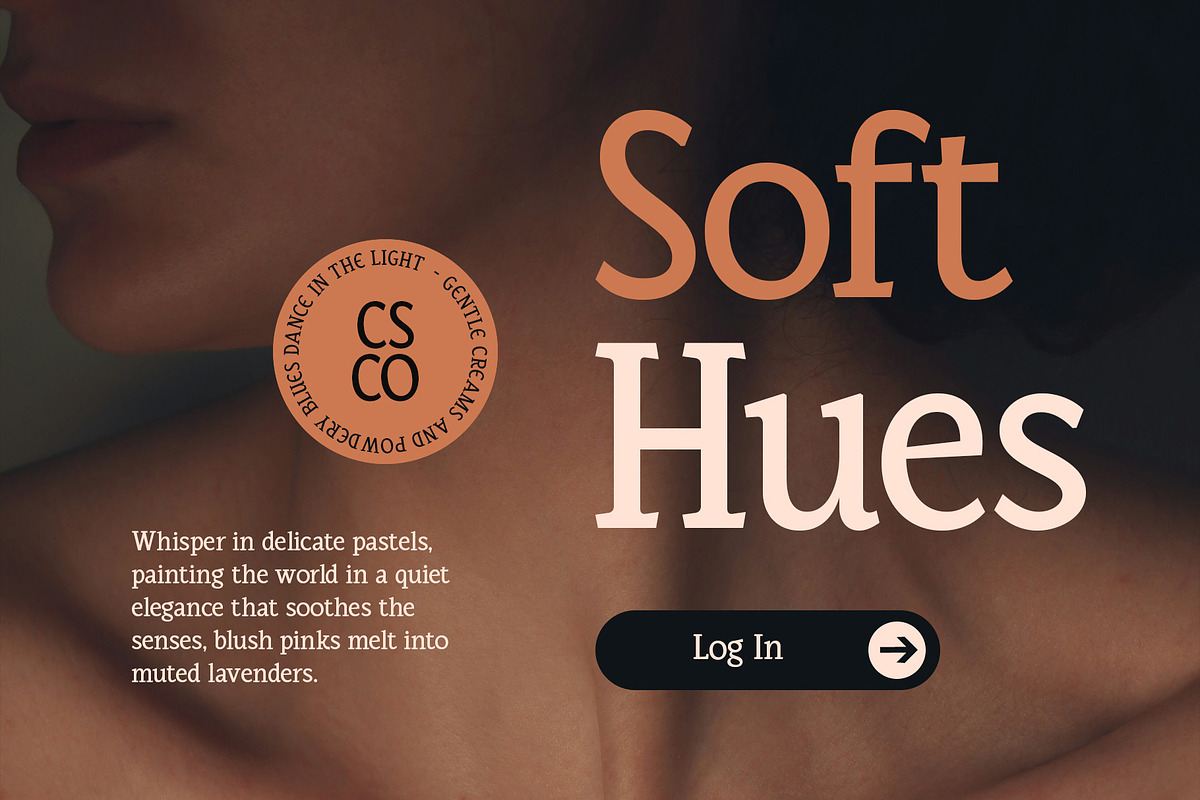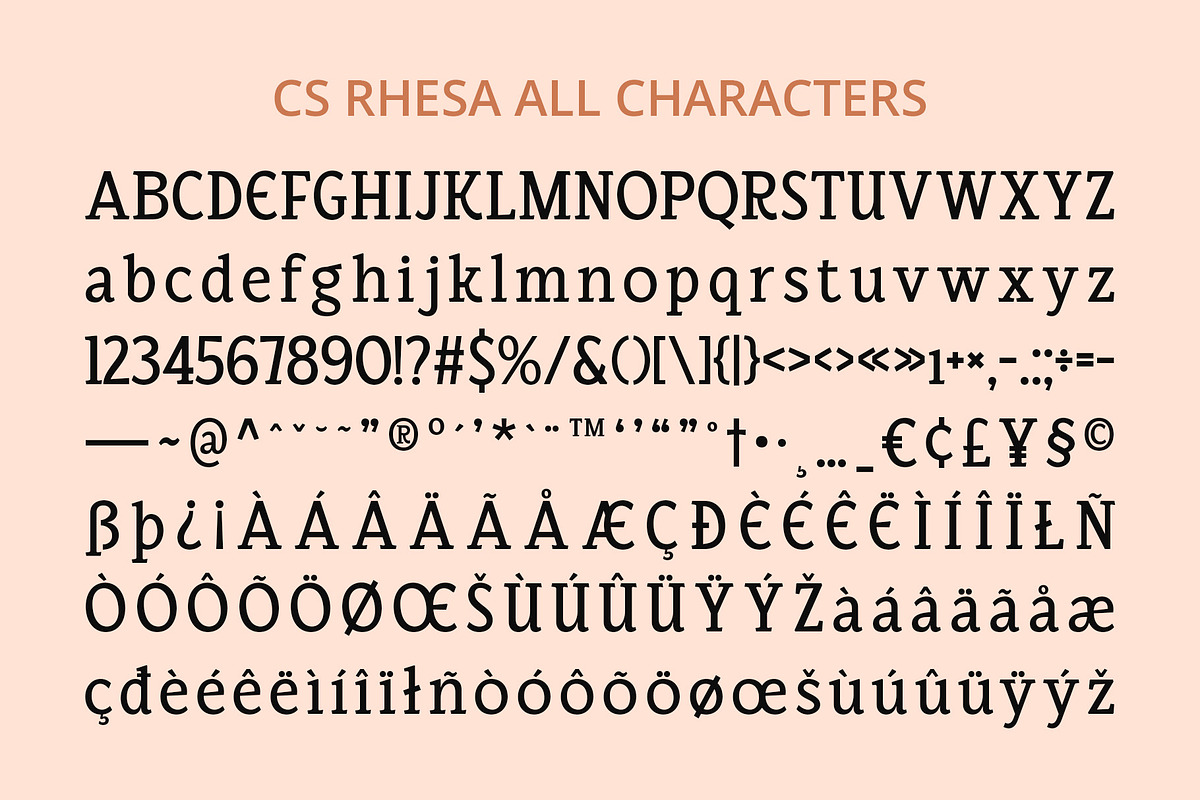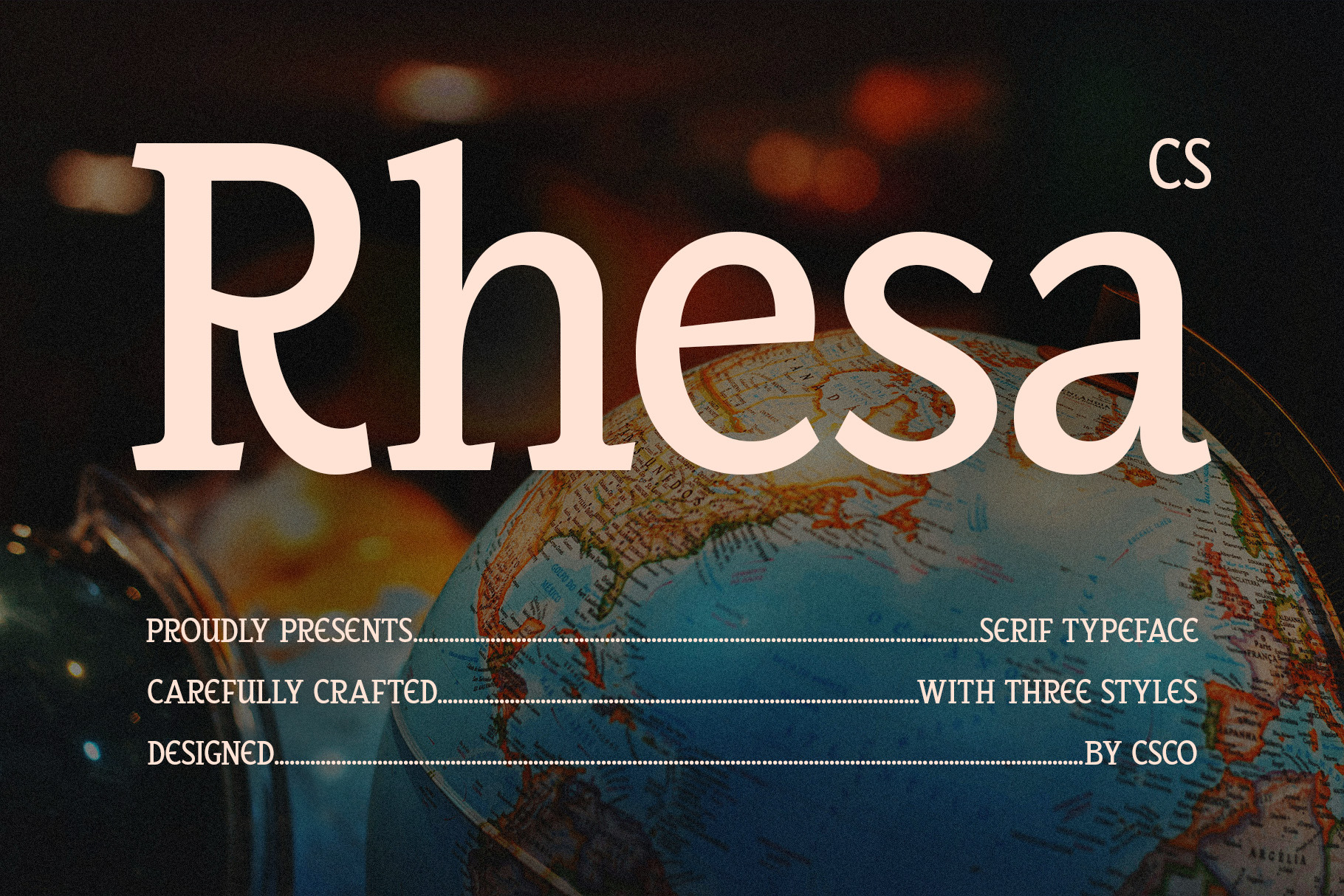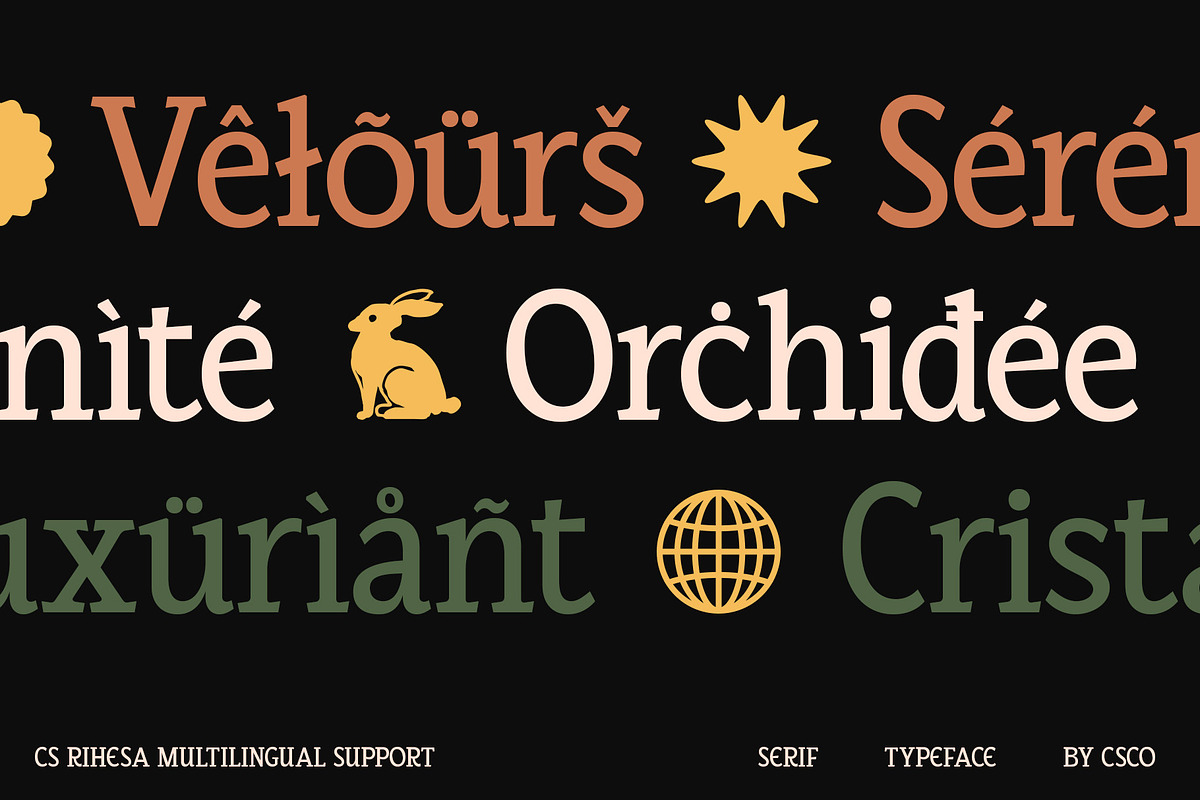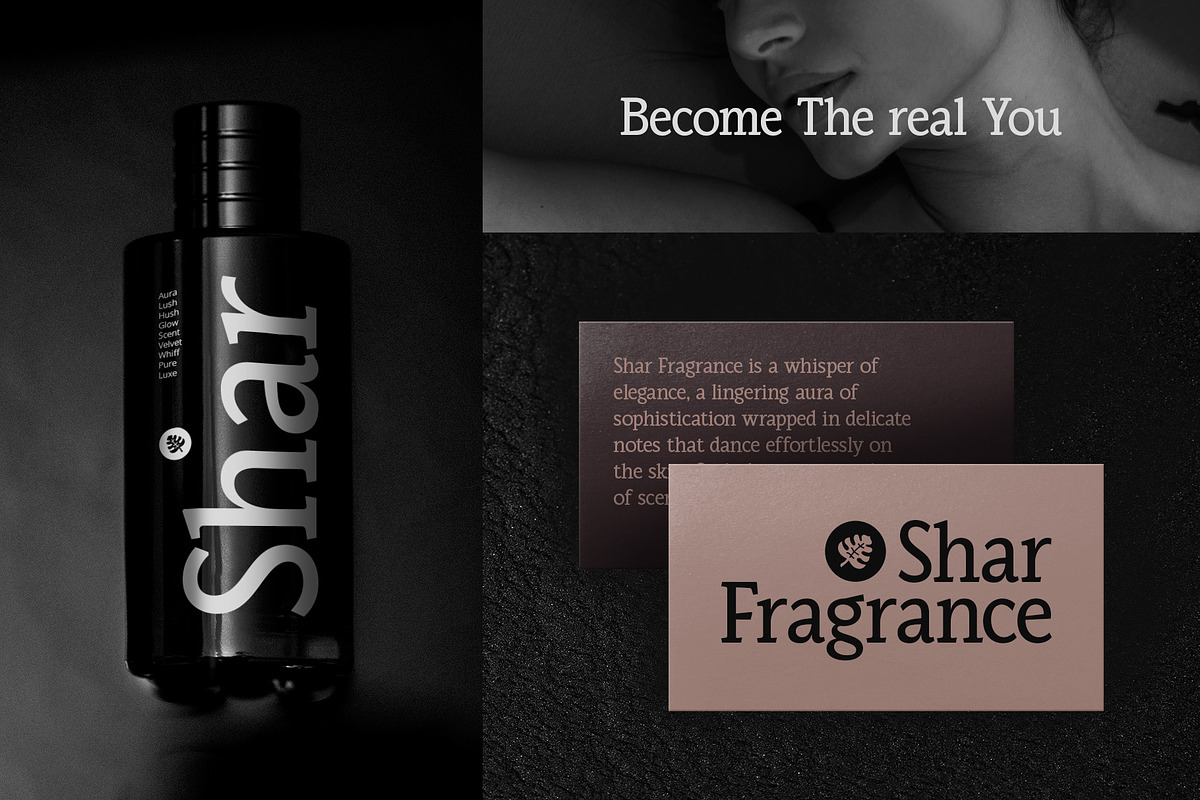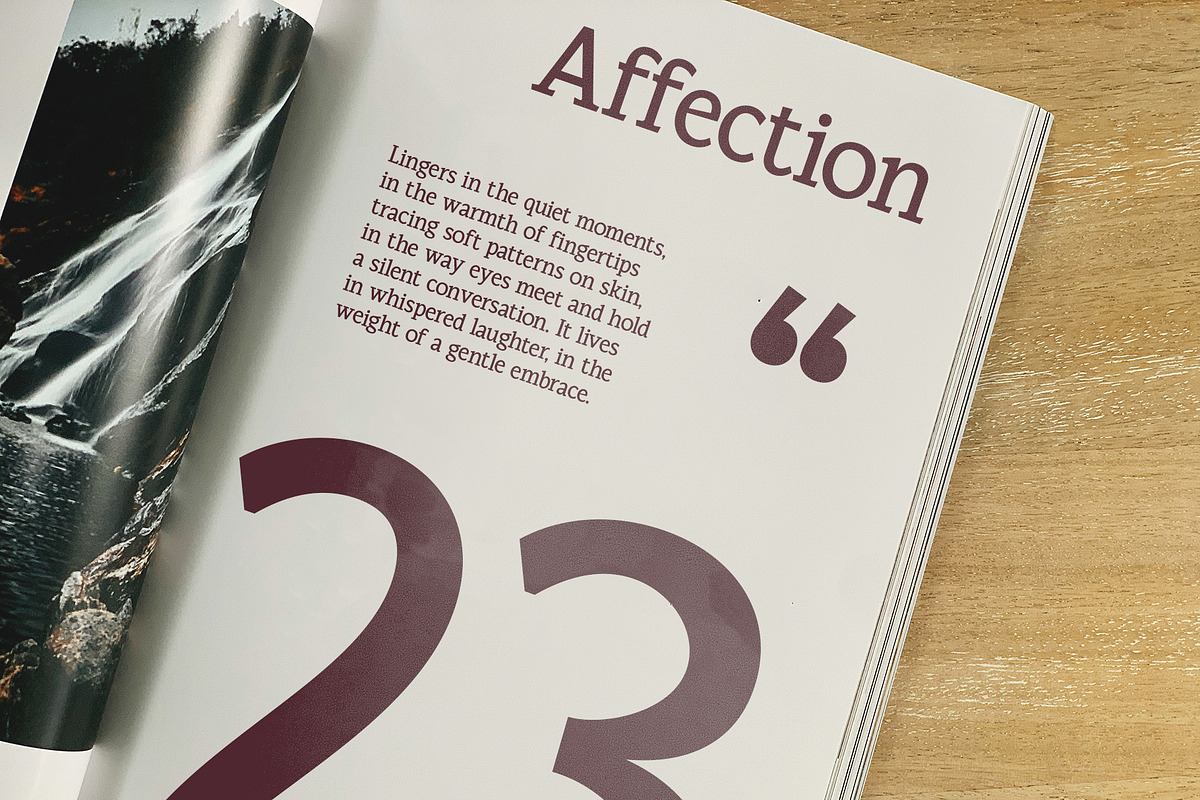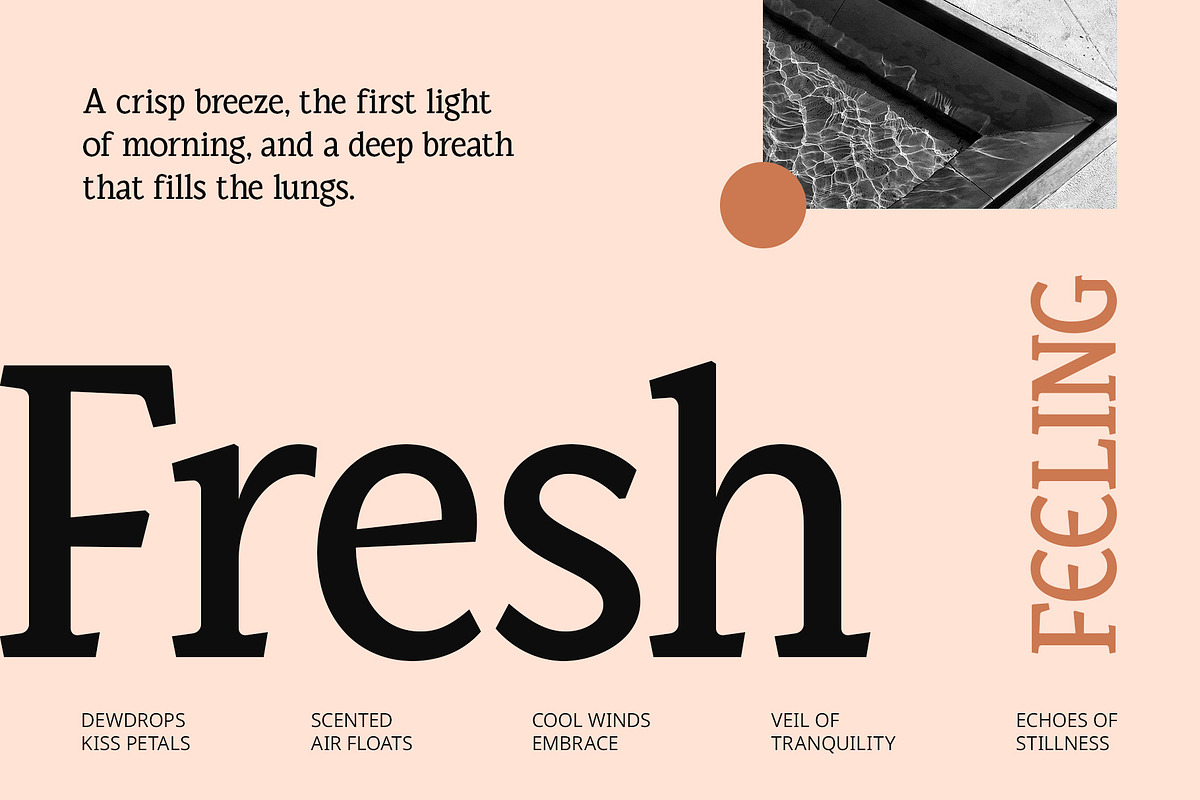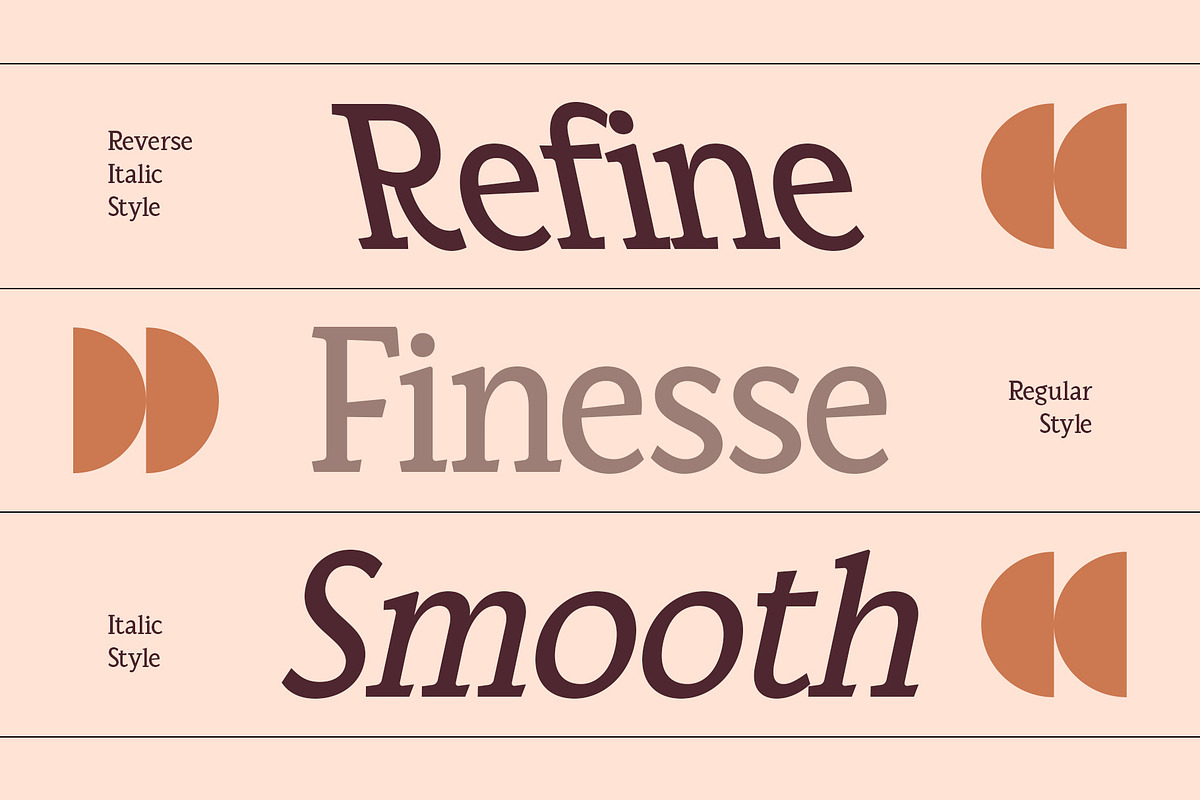
CS Rhesa – Classic Font
CS Rhesa – Classic Font: Timeless Elegance with Modern Refinement
Modern Classic Serif with Balanced Contrast CS Rhesa is a modern classic serif font that blends timeless tradition with contemporary sophistication. Designed with precision, it features a balanced contrast between thick and thin strokes, enhancing both elegance and readability. This refined balance makes it a perfect choice for projects that require a distinguished and polished look.
Refined Letterforms with Luxurious Appeal Every letter in CS Rhesa is crafted with meticulous attention to detail, creating a luxurious yet professional impression. The smooth curves, sharp serifs, and well-proportioned letterforms contribute to its distinctive classic style. While rooted in traditional serif design, its contemporary refinements ensure it remains fresh and relevant for modern use.
Perfect for Premium and Formal Designs CS Rhesa is ideal for high-end branding, elegant editorial layouts, and formal documents that require a sense of prestige. Whether used for luxury packaging, corporate branding, wedding invitations, or upscale marketing materials, this font exudes class and sophistication. Its balanced proportions and graceful strokes make it a versatile asset for designers seeking a refined yet strong visual identity.
Versatile for Sophisticated Applications Beyond its classic elegance, CS Rhesa adapts beautifully to a variety of creative and professional applications. It works seamlessly for magazine headlines, book covers, logos, and fashion-related designs, where a touch of tradition meets modern flair.
- CS Rhesa Regular
- CS Rhesa Italic
- CS Rhesa Reverse Italic